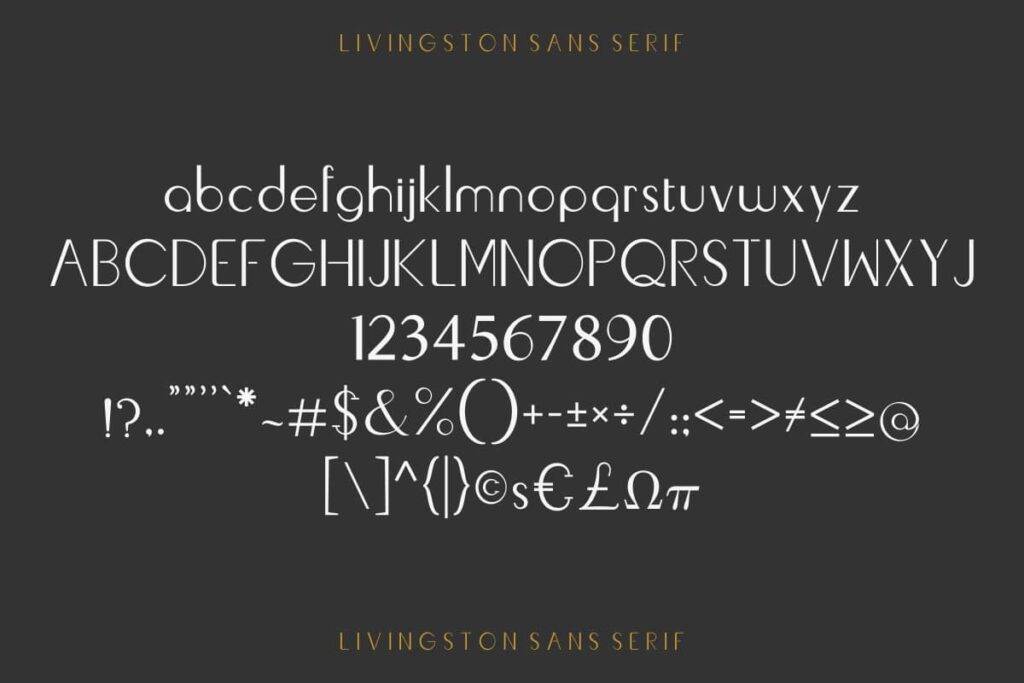
Livingston Font Trio
Livingston, our newest typeface, is now available! It’s THREE!!!!! Serif, Sans, and Script fonts are included in this collection. Everything is attached in one package. Edricstudio designed and uploaded it on June 25, 2019.
This is a brand-new modernist font with a feminine signature style script handwriting font. The fonts are Elegant Sans and Exclusive Serif. The characters of Livingston Font are new, distinct, upscale, and attractive. It has multilingual characters. The font is compatible with Windows, Mac OS X, and Android. Only the ZIP format is available for this font. Few similar fonts are: made Mirage Serif Font Family, Limestone Ridge Display Sans Font Duo, North Mount Font Trio etc.
Branding, logos, stationery, business cards, signage, flyers, brochures, websites, and applications will benefit from the Livingston Font Trio. This font is appropriate for various businesses, including weddings, fashion, boutiques, premium real estate, insurance, legal firms, and designers. It’s laid-back yet elegant, light and lovely.